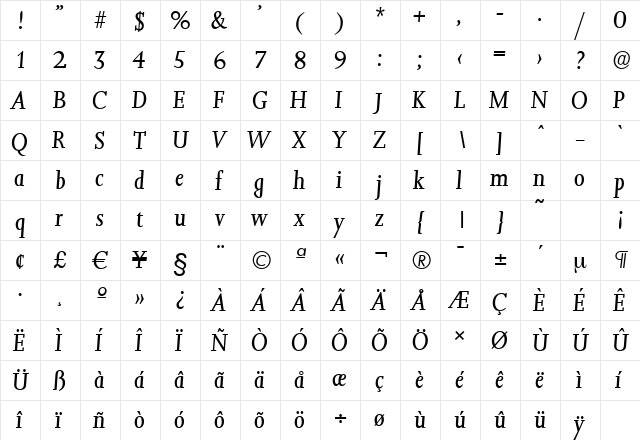
JessicaSerial Italic
Design Context for JessicaSerial Typeface
JessicaSerial takes a measured approach to typography — its balanced proportions and neutral character make it a reliable workhorse for both digital and print work. Its italic angle brings a sense of urgency and motion to the letterforms.
Pro Tip: Try JessicaSerial for annotation and caption copy alongside an upright companion — the contrast in angle creates a dynamic but ordered typographic system.